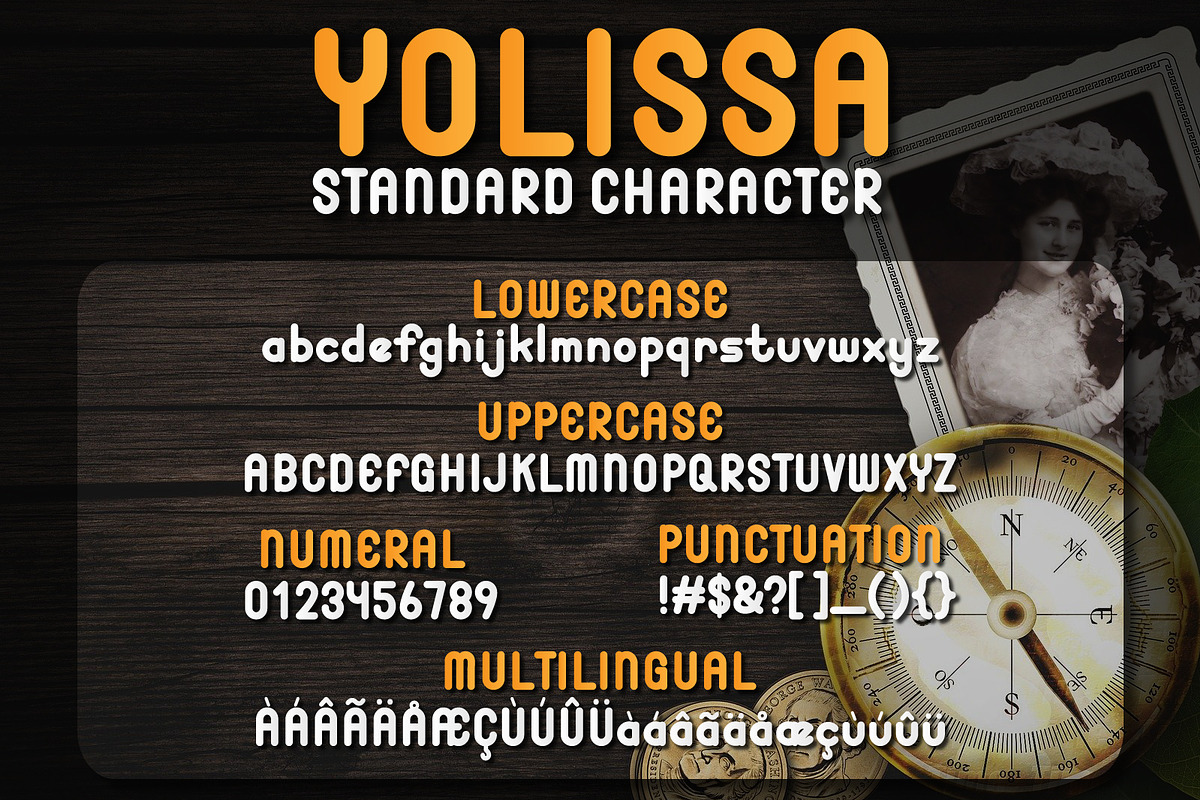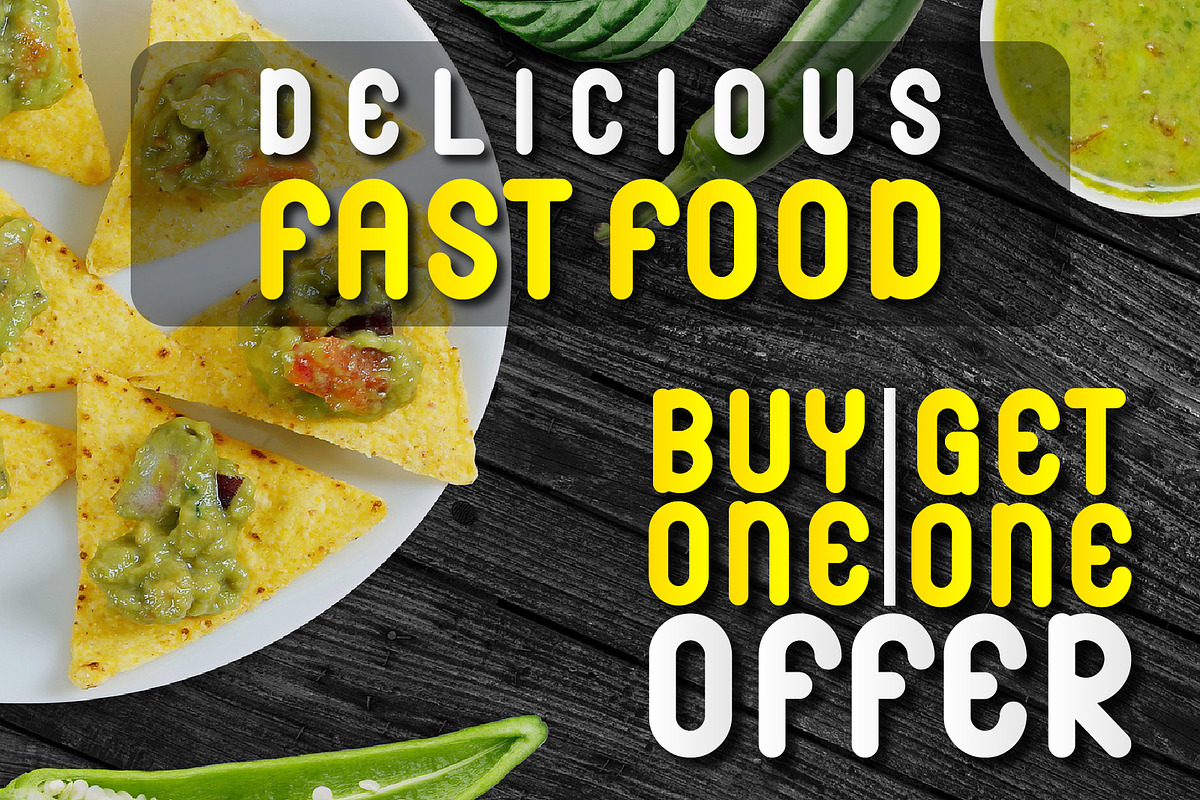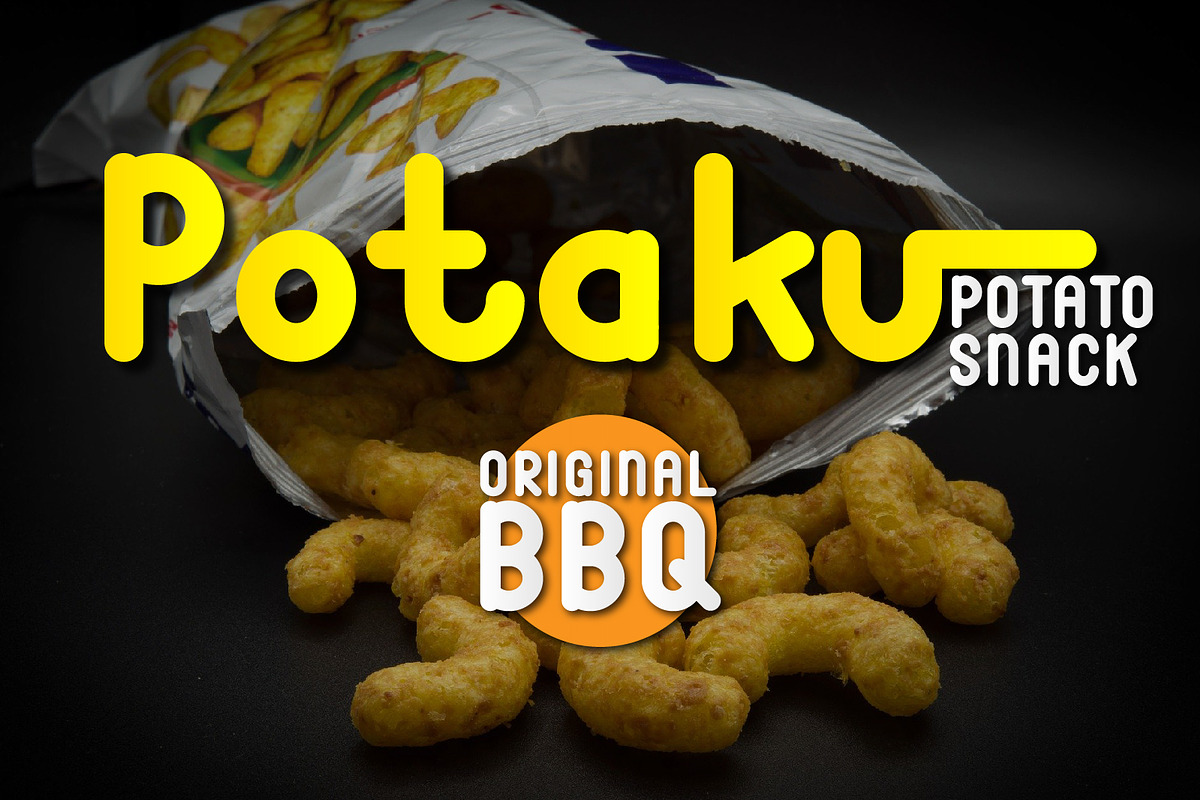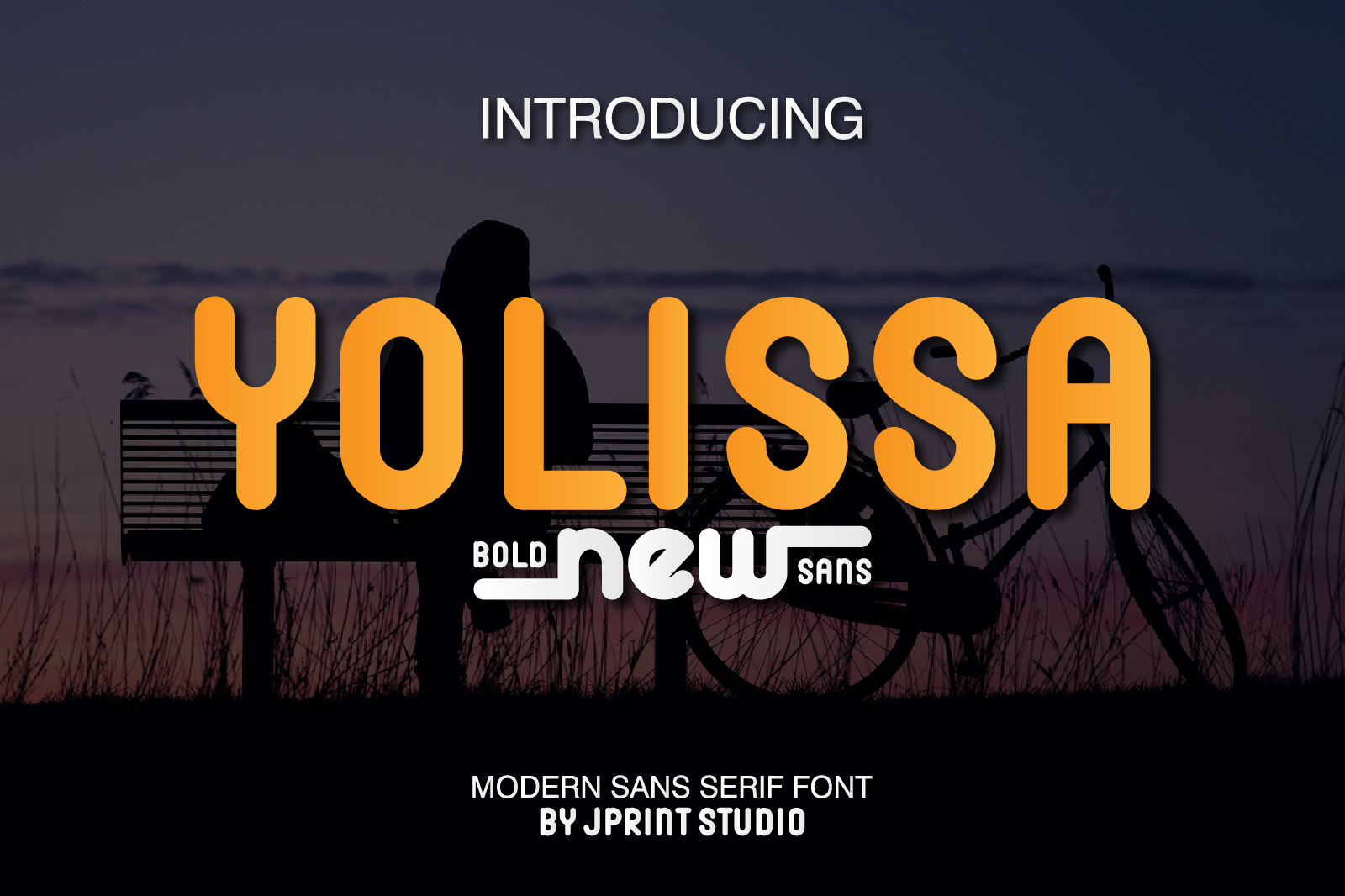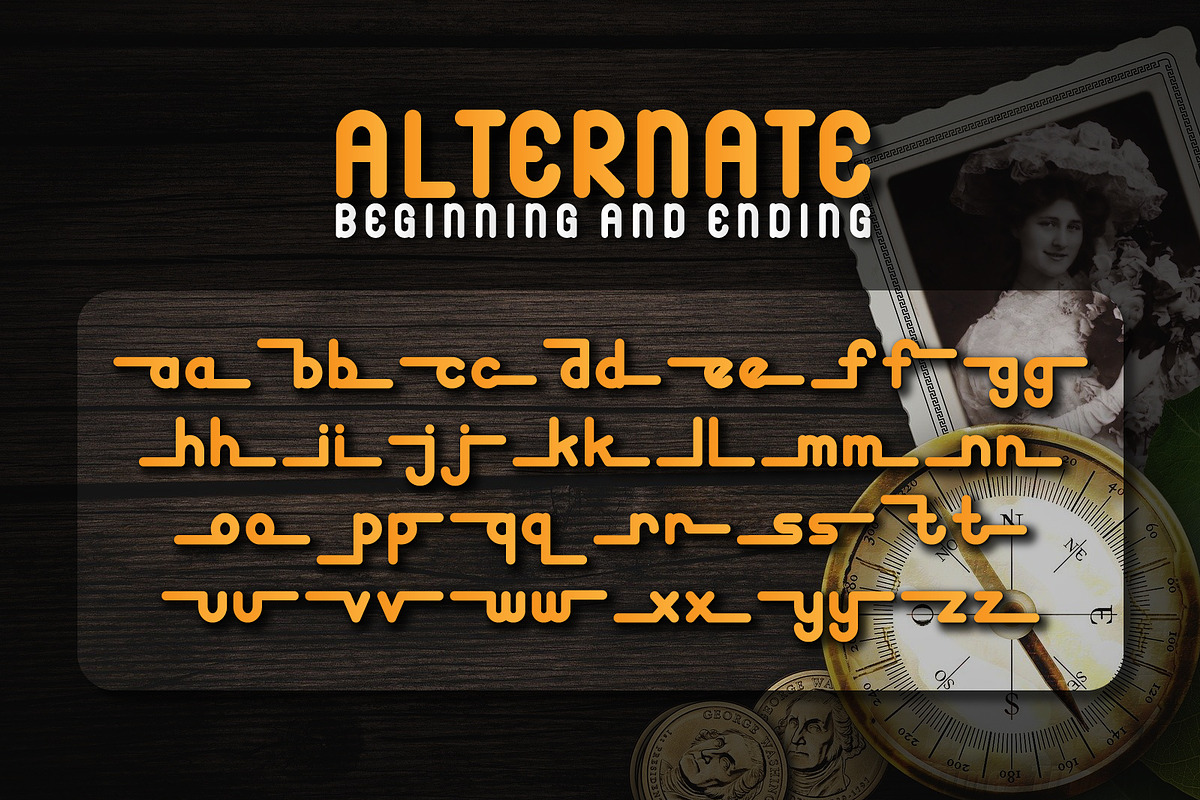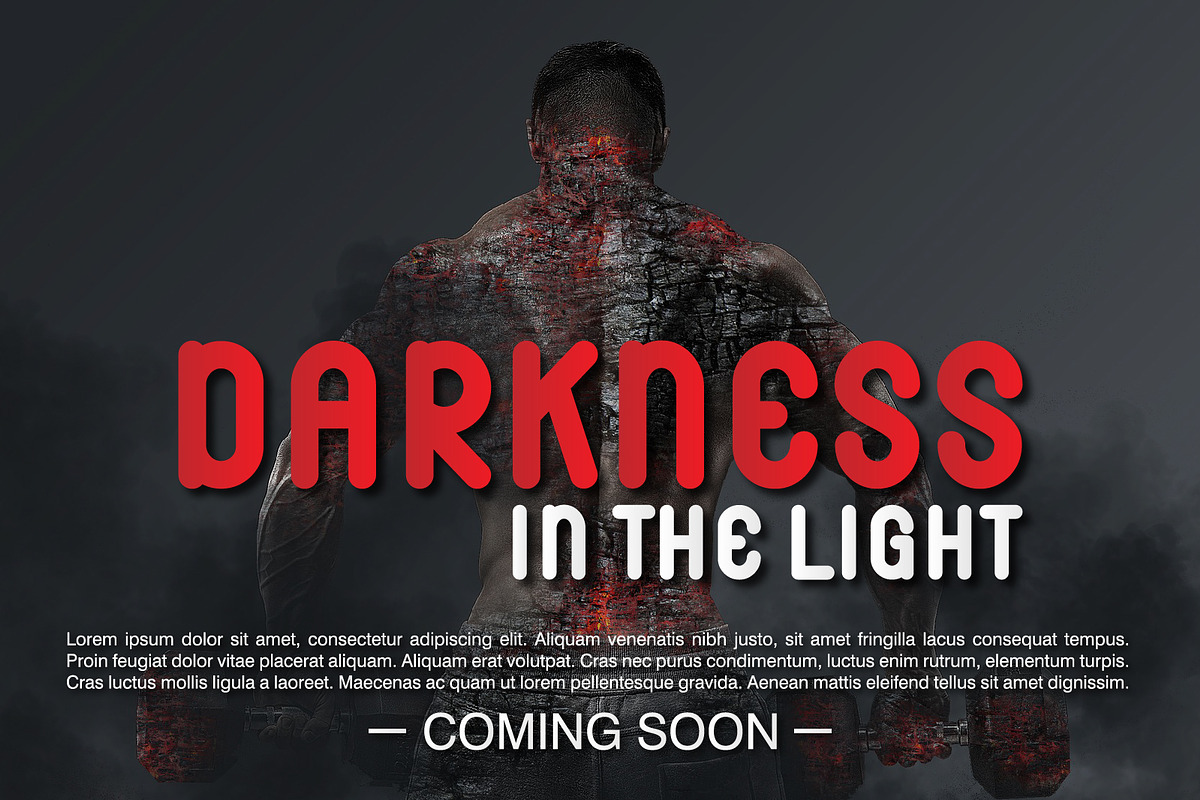
Yolissa | A Modern Sans Serif Font
Yolissa is an elegant and modern sans serif font with an undeniably clean feel. With its neat and beautiful arrangement of letters, this typeface will look outstanding in both formal and non-formal designs.